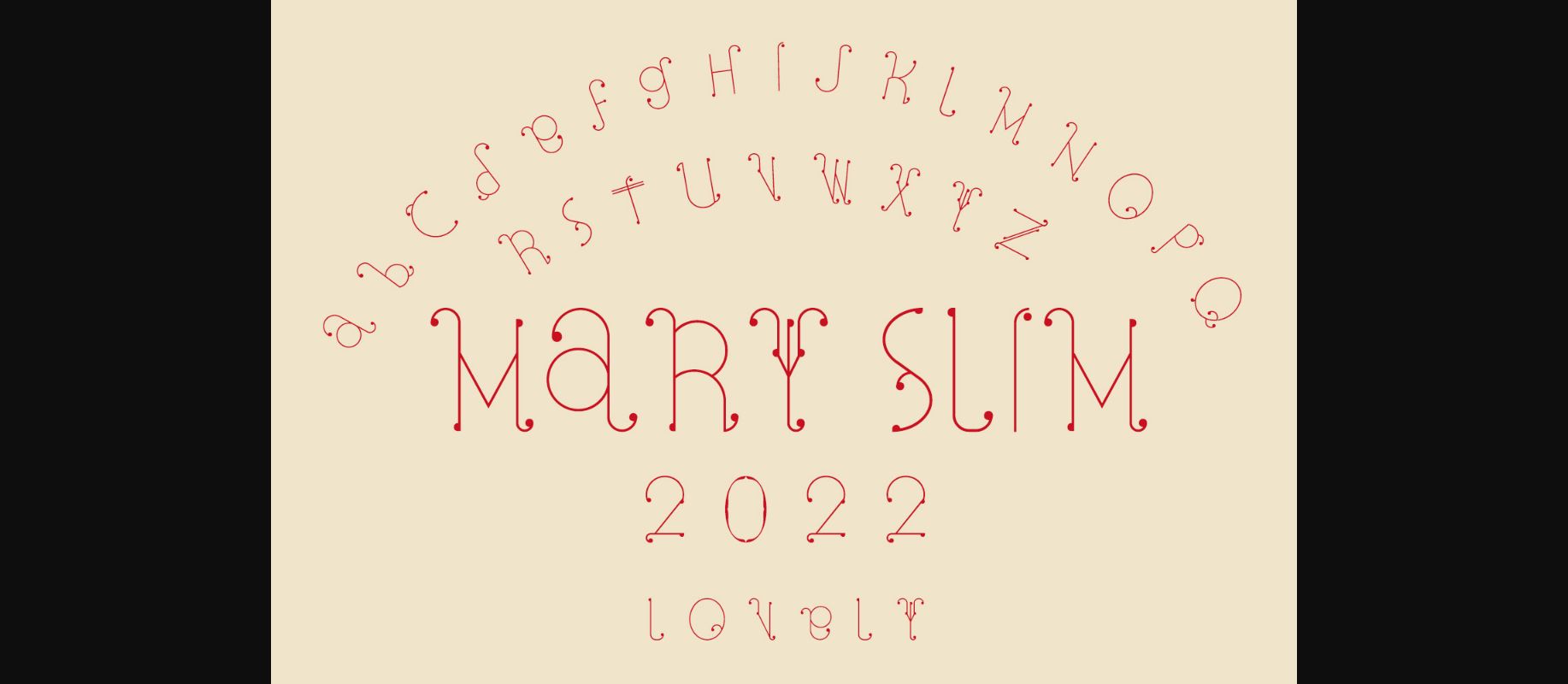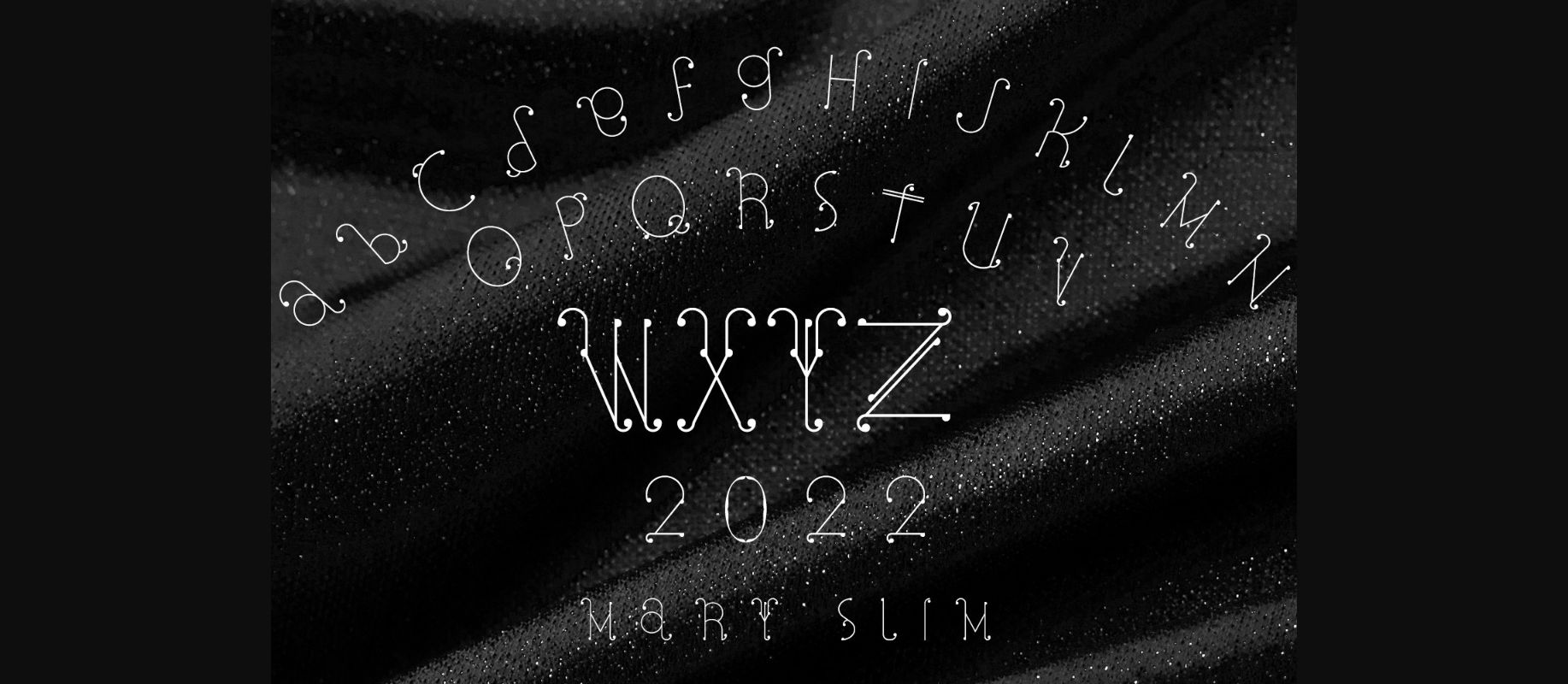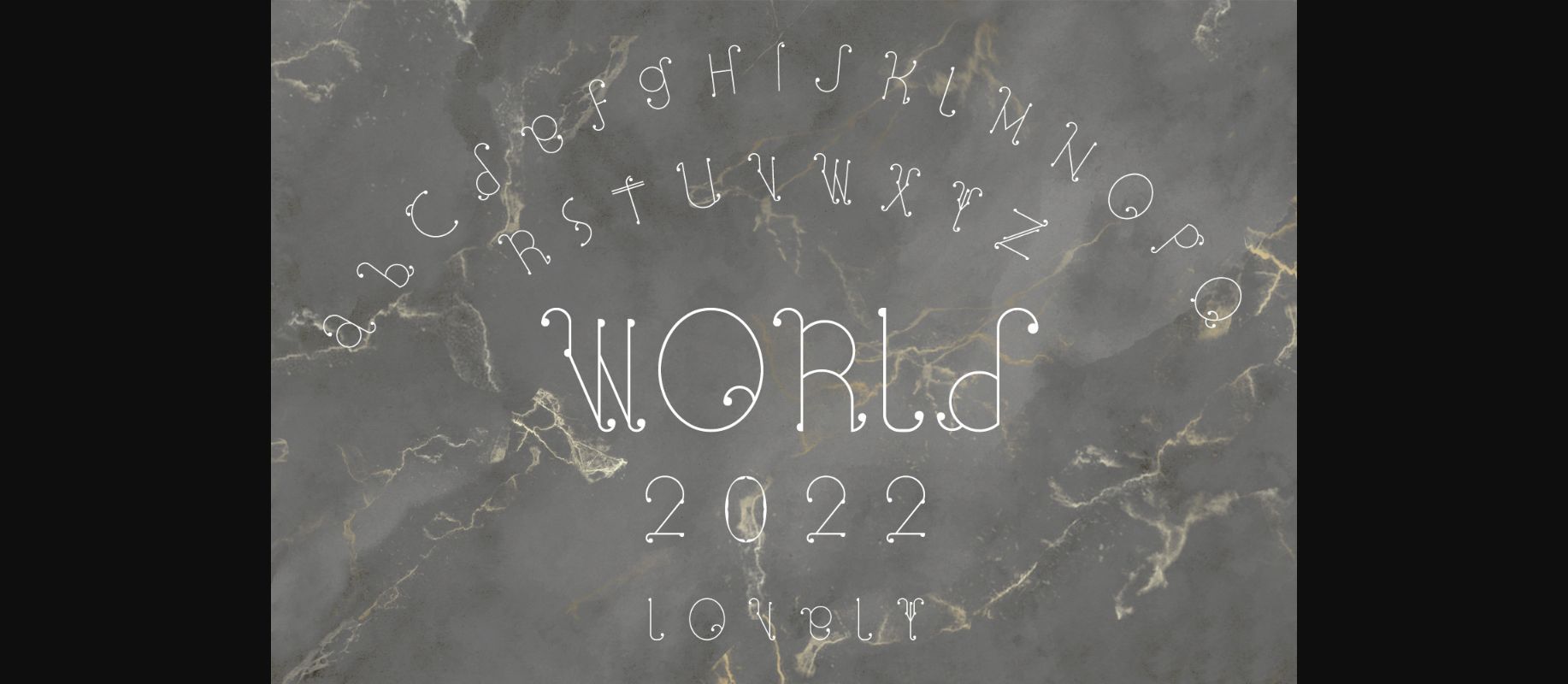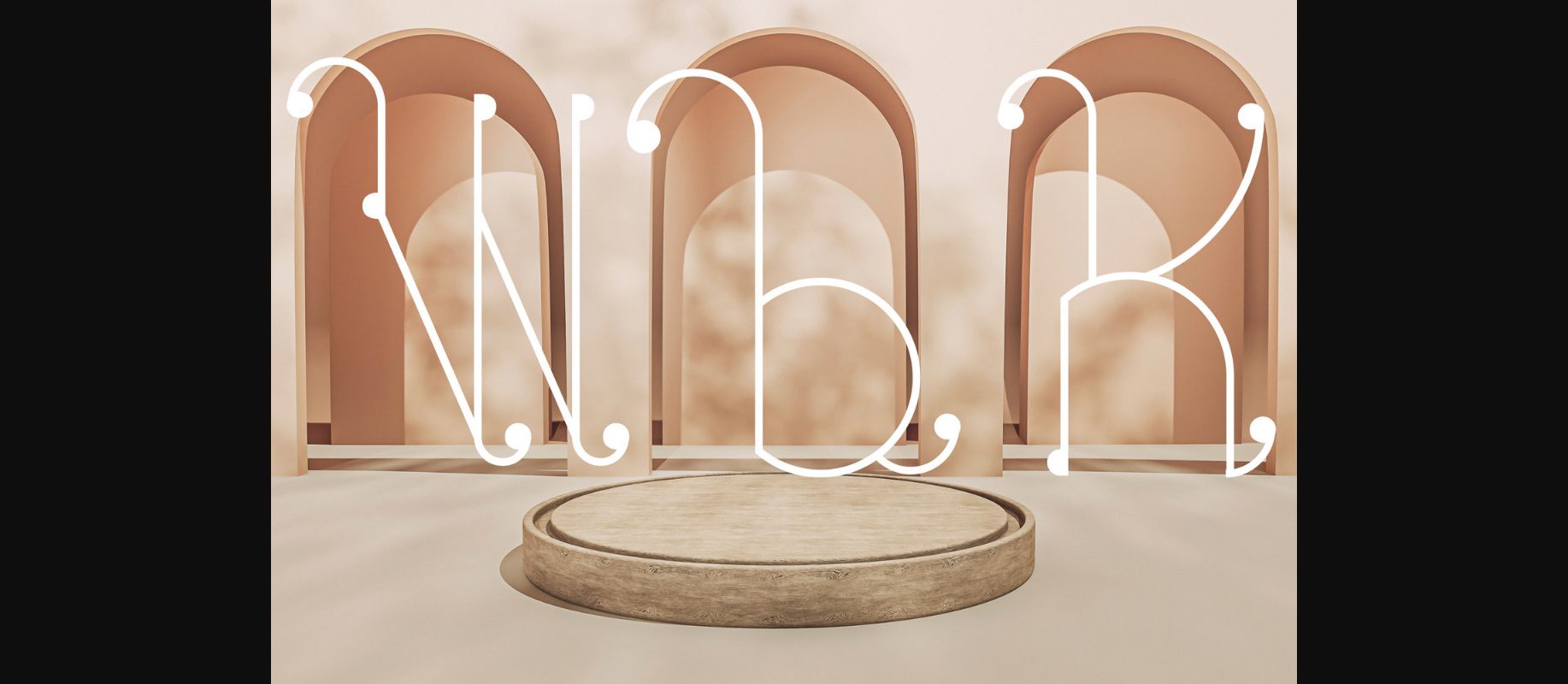
Mary Slim Font
About Mary Slim Font
Mary Slim is created with simple lines and a great sense of style. This amazing decorative font works great on dainty items, artistic projects, or anything crafty and unique.